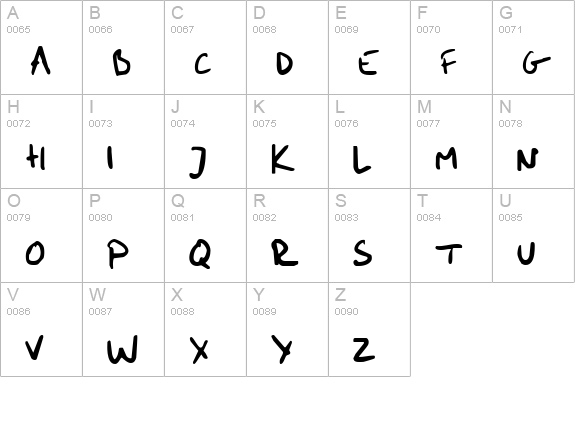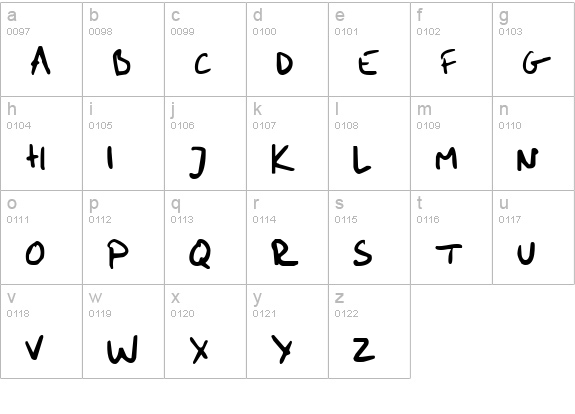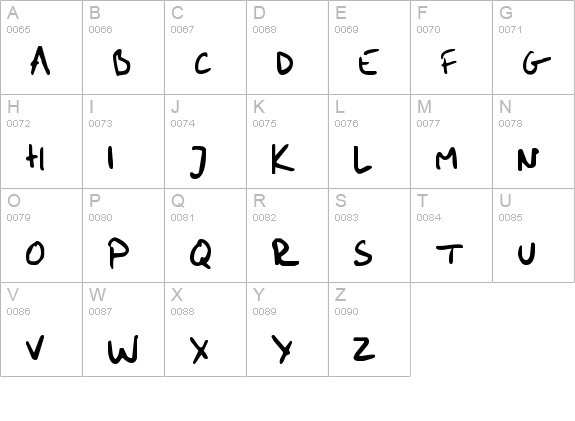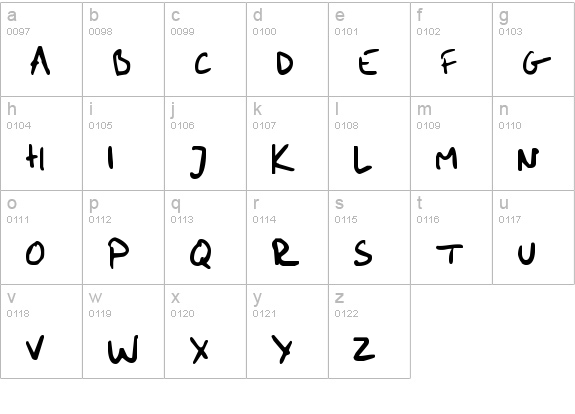
me handwritin Bold Font Details
me handwritin Bold is a strong, high-contrast variant in the me typeface family \xE2\x80\x94 well suited to headlines, attention-grabbing titles, and strong calls-to-action.
**Immerse yourself in the elegance and uniqueness of this handwritten font, perfect for adding a personal touch to your projects. With its fluid lines and bold strokes, this font exudes creativity and originality. Whether you're designing invitations, creating branding materials, or crafting social media graphics, this font will elevate your work to new heights. Best of all, it is freely available to download at FontsMarket.com, making it easily accessible for all your design needs. Embrace the beauty of handwritten typography with this stunning font today!**